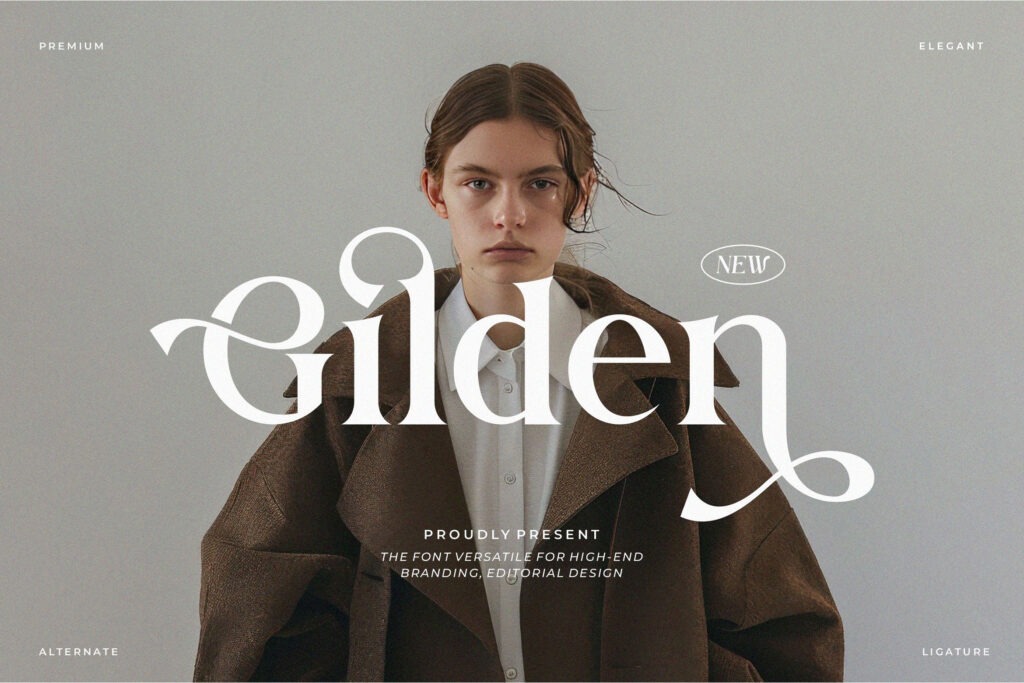
Gilden – Modern Serif Font
Gilden – Modern Serif Font brings a balanced structure and contemporary look, making it suitable for both digital and print design. Gilden Serif is a modern and classy font type for all branding and logo designs. This modern and classy Serif font has a beautiful character. This font is suitable for invitation card designs, cool logos, movie titles, movie names, business cards, book titles, brand names, and various other designs. Gilden Serif is a smooth serif font that exudes sophistication and the moment. Its stylish ligatures make this font a perfect partner for any project.
– Ligature
– Uppercase and lowercase
– Numbering and Punctuation